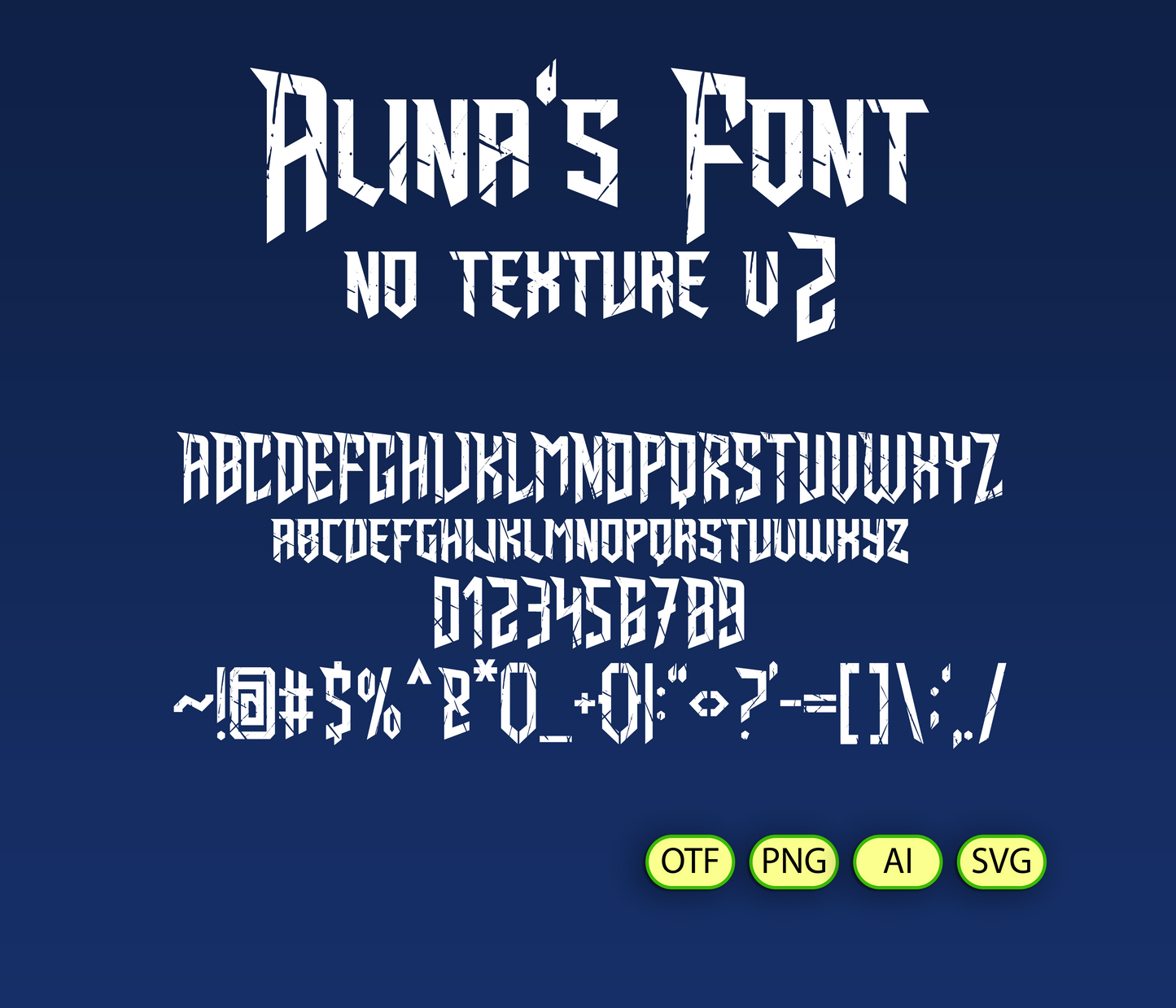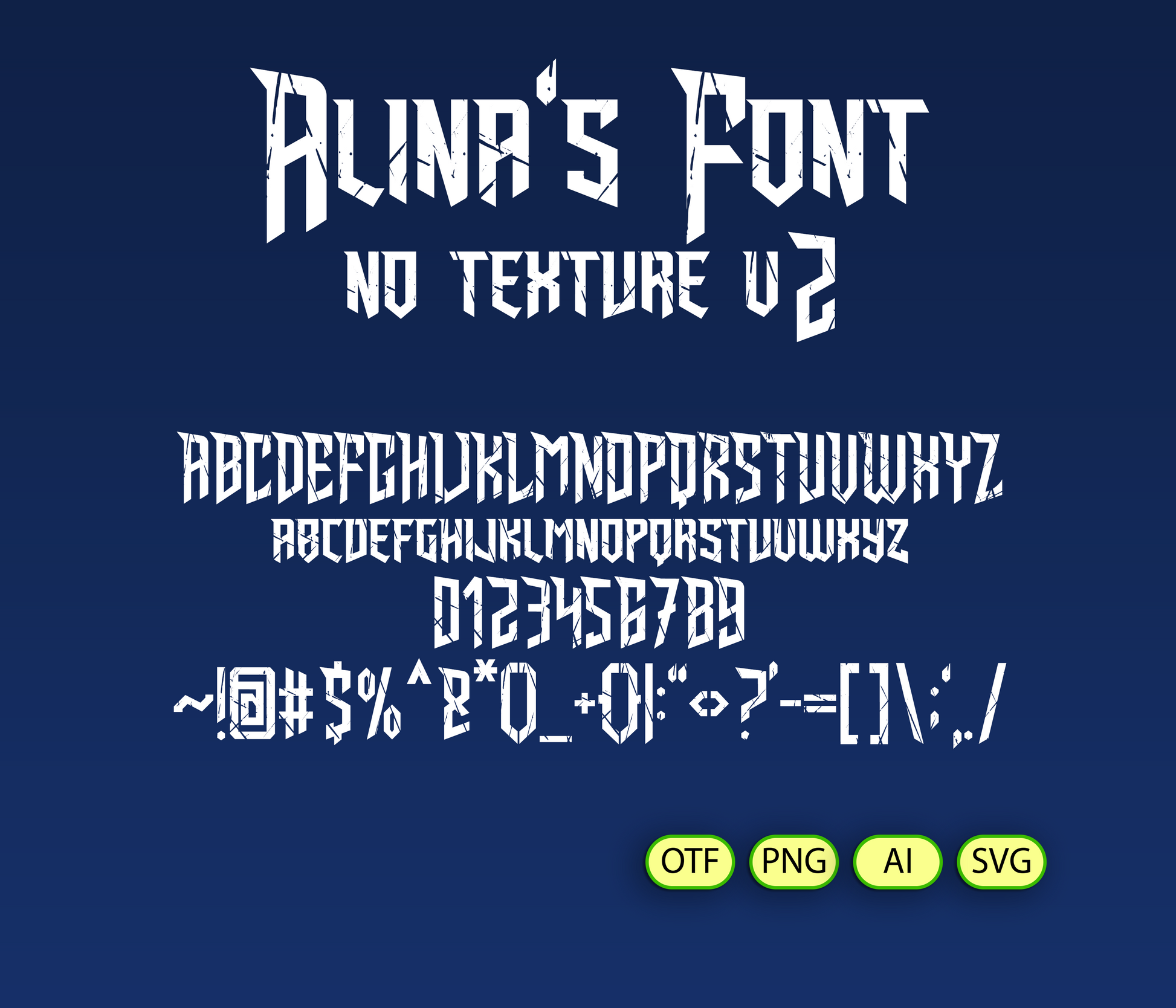
Devil Hunter Font
Underworld Demon Hunter Font Devil May Cry Font
Step into the shadowy realm of supernatural combat with our Underworld Demon Hunter font, capturing the essence of stylish gothic action and dark fantasy adventure. Perfect for gaming enthusiasts, graphic novel creators, gothic event organizers, and designers, this font brings the dynamic, sword-wielding spirit of legendary monster slayers to your projects. Create event invitations, themed merchandise, or digital content with the high-stakes energy of this epic otherworldly quest.
Our Underworld Demon Hunter font features edgy, sharp lines and gothic characters reflecting the intense supernatural battles and stylish combat of legendary creature hunters. Ideal for:
Our Underworld Demon Hunter font includes textured and non-textured variants, ensuring compatibility with all software, including Canva. This feature allows easy incorporation into designs for users of all skill levels.
Our font pays tribute to the legendary gothic action genre, empowering your designs with its intense and stylish spirit. Whether crafting promotional materials, designing merchandise, or adding a dynamic touch to personal projects, this font communicates the bold essence of supernatural combat and monster hunting. Ready to inject gothic action into your creations? This font is your key to exciting, impactful design.
Devil May Cry Font